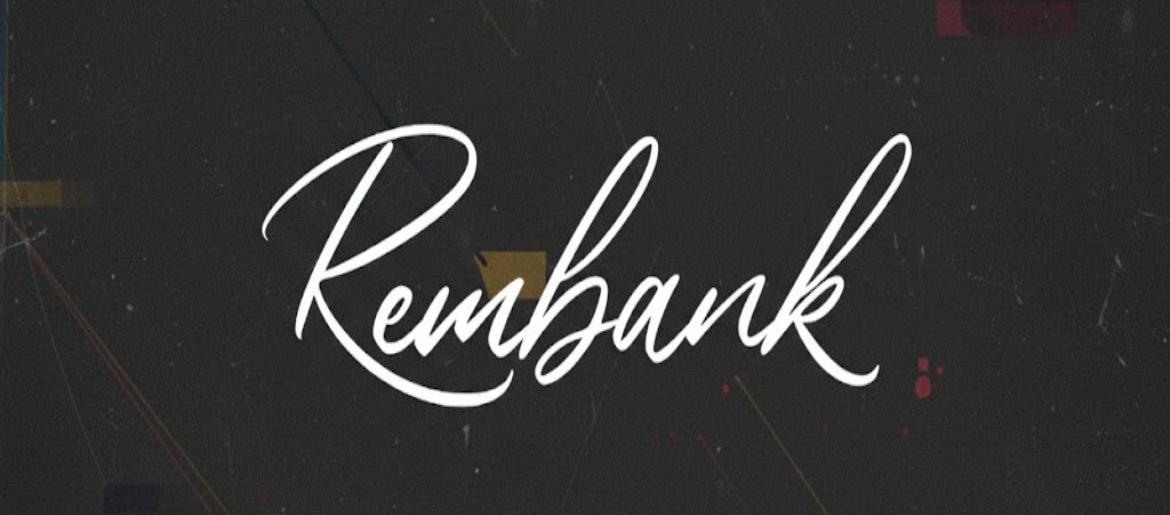
Rembank Font
Rembank Font is a beautiful script typeface created by Garisman Studio, featuring smooth flowing strokes and elegant handwritten styling. It delivers a graceful and expressive personality, making it ideal for logos, invitations, branding, packaging, and decorative typography. Its refined curves and stylish appearance make it a charming and versatile option within elegant and creative free fonts collections.
➤ Font Name: Rembank
➤ Designer: Garisman Studio
➤ Style: Script